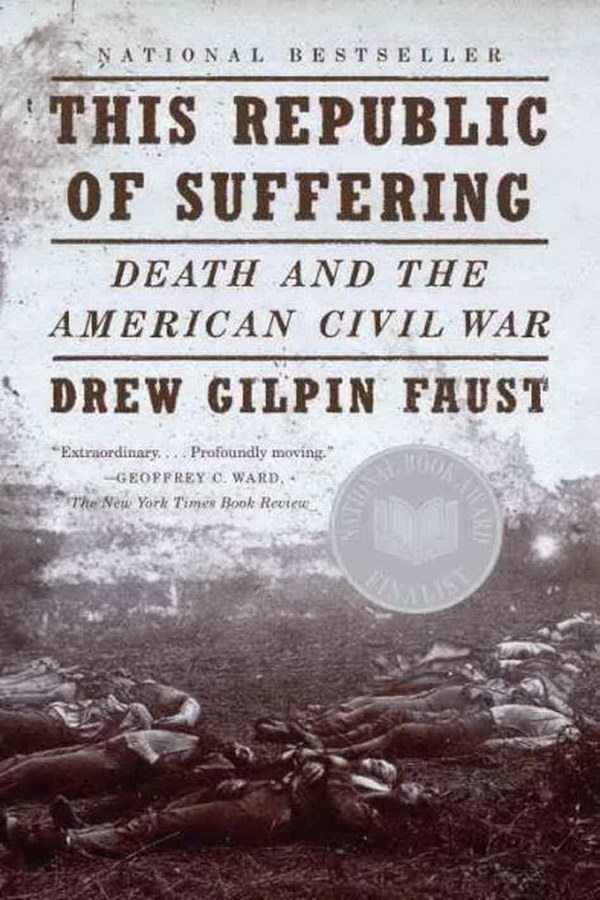
This Republic of Suffering Font
BookThis Republic of Suffering: Death and the American Civil War is a non-fiction book by Drew Gilpin Faust that explores how death and dying shaped the American Civil War and transformed American society. It analyzes how the war brought about new ideas about death, burial, and the nation's responsibility to care for its fallen soldiers.
The font used for the title of the book is very similar to Rockwell Bold Condensed, a slab serif designed at the Monotype foundry in 1934. The typeface is a commercial one and you can find details about it here.